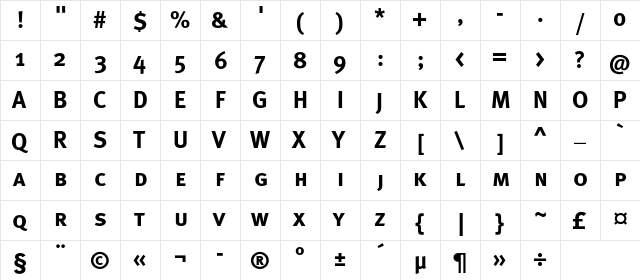
MetaBoldCapsC Regular
Design Context for MetaBoldCapsC Typeface
MetaBoldCapsC offers clean, dependable letterforms without strong stylistic allegiance, making it a practical choice for designers who need flexibility. Its bold stroke weight gives it real presence on the page.